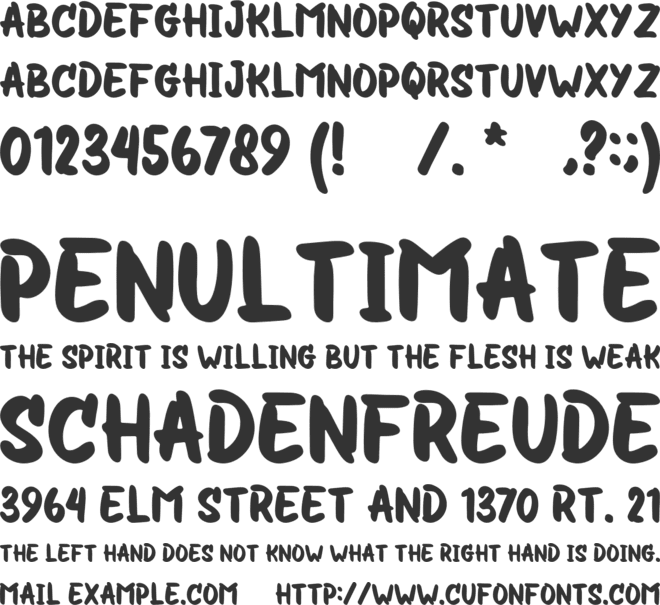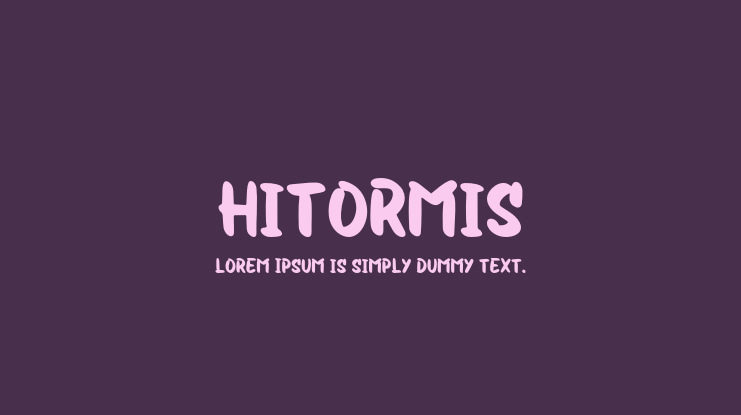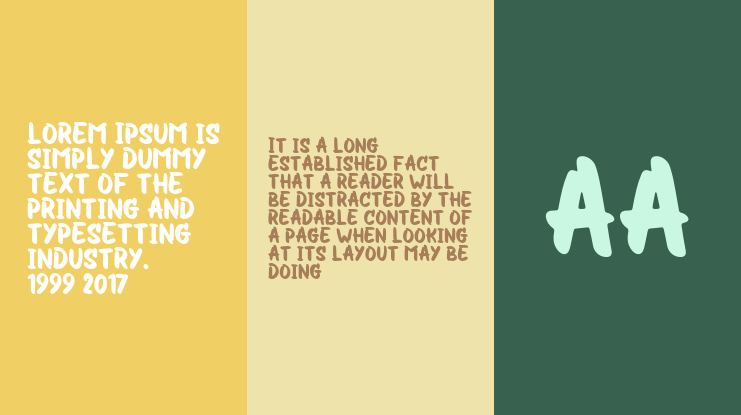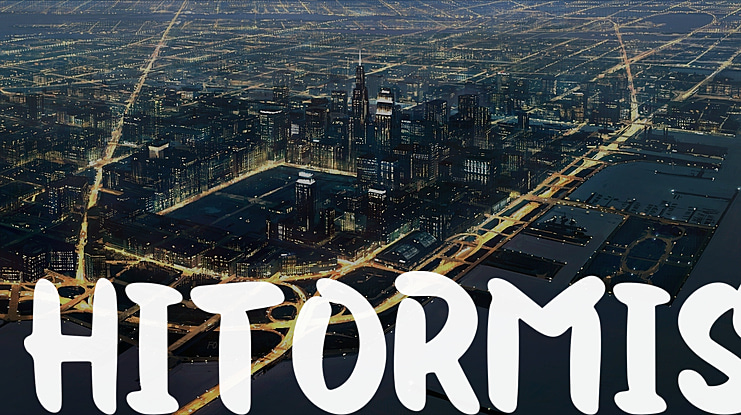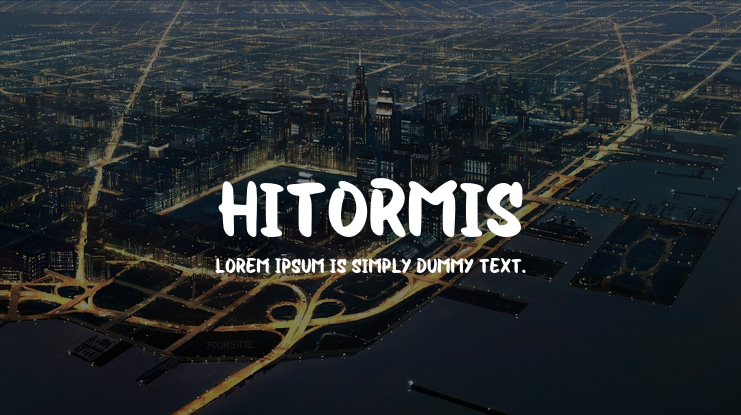
Hitormis Font
Introducing Hitormis by Forberas ClubA fancy and elegant handcrafted font that create to impress your audience and make your branding shine.Make your projects dance with this elegant and wonderful font wherever you use it. Use it for your headings, logos, ads, printed quotes, packaging, and even your website or social media branding.every letter has unique and beautiful touch, which will make your design come alive!This is a smooth font - perfect for cut machines like Cricut and Silhouette!This digital instant download includes OTF & TTF (both files can be used for most programs).BUNDLES PROMO!www.etsy.com/shop/forberasCF DOWNLOAD!www.creativefabrica.com